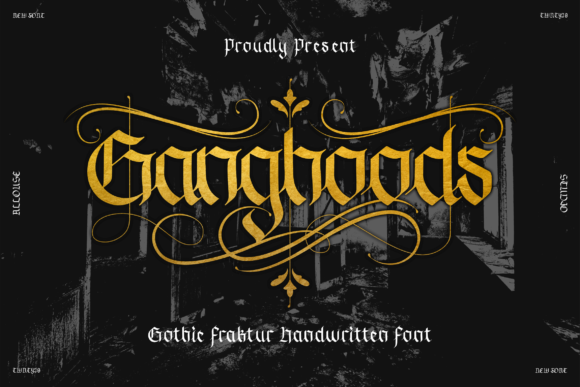
Unleash Your Creative Edge with Ganghoods Font
You know that moment when an idea strikes, and you can’t wait to bring it to life? The rush of creativity, the spark of inspiration, and the desire to express it in the most captivating way possible. For designers, this moment is a daily occurrence, and having the right tools can make all the difference. That’s where Ganghoods Font comes in – a bold, striking blackletter font designed to take your creations to the next level.
Expertly crafted to make a statement, Ganghoods Font is perfect for designers who want to add a touch of assertiveness to their work. With its cool, distinct style, this font is versatile enough to elevate a wide range of projects, from posters and flyers to logos and digital art. Whether you’re a seasoned pro or just starting out, Ganghoods Font is an invaluable asset in your design toolkit.
- Unique Characteristics: The font features a unique blend of modern and distressed elements, giving it a rugged, edgy feel that’s perfect for urban and street-inspired designs.
Ganghoods Font Review
Overall, I’d say that Ganghoods Font has some great qualities, but it’s not without its limitations. Let’s dive in and explore both the good and the bad.
- Unique aesthetic: Ganghoods Font has a distinct, gritty feel that sets it apart from more traditional fonts.
- Highly customizable: The font offers a range of options for adjusting size, color, and other settings, making it easy to tailor to your specific needs.
- Good for bold statements: The font’s bold, edgy style makes it well-suited for headlines, titles, and other text that needs to grab attention.
- Readability issues: At smaller sizes, the font can be difficult to read, particularly for those with vision impairments.
- Limited font weights: While the font offers a range of sizes, the available weights are somewhat limited, which can make it harder to achieve a specific look.
- Not suitable for body text: Due to its bold, attention-grabbing style, Ganghoods Font isn’t ideal for use as body text, where readability is paramount.
Ganghoods Font is a great choice for projects where you need to make a bold statement or add some edge to your design. However, it’s not the best option for everyday body text or situations where readability is a top priority.
The Ganghoods Font is ideal for creating bold and edgy designs, such as:
- Streetwear branding
- Urban-inspired posters
- Edgy social media graphics